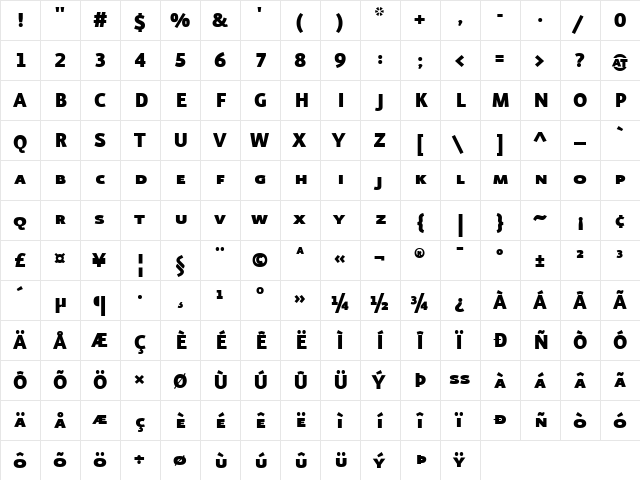
EurekaSans-BlackCaps Regular Font Preview
EurekaSans-BlackCaps Regular
EurekaSans-BlackCaps Regular Font Details
| Foundry | Peter Bilak, published by FontShop International for the FontFont library |
Design Context for EurekaSans-BlackCaps Typeface
EurekaSans-BlackCaps is a composed and adaptable typeface that performs quietly and consistently across a wide range of design contexts.